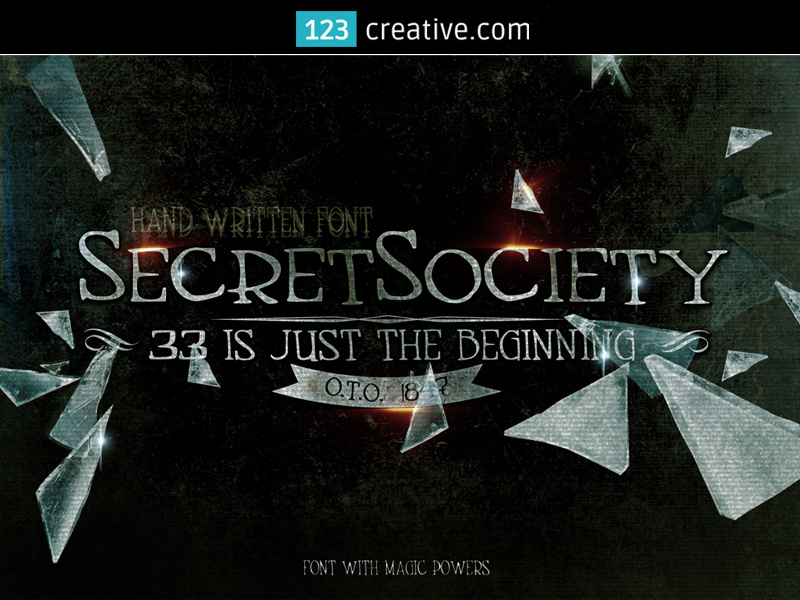
Secret Society Font Family - handmade handwritten font
Secret Society Font Family - handmade handwritten font with numbers in regular and double style + Bonus vectors
You’ll probably expect to see in some old, dusty book of magic (or a fairytale). It comes in 2 styles. Included are .ttf, .otf and a web font. It really looks cool as a website font (regular version). There are also some BONUS vectors included, that will give your projects a nice touch.